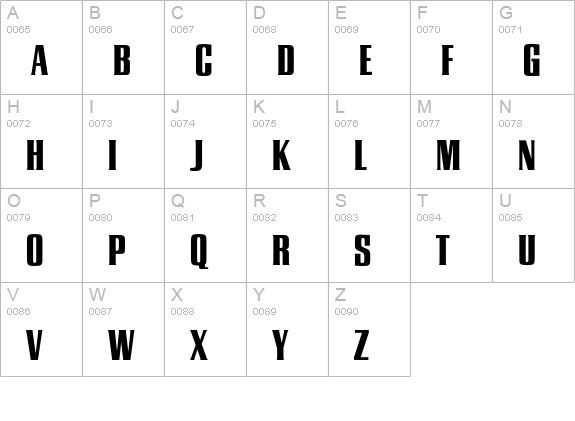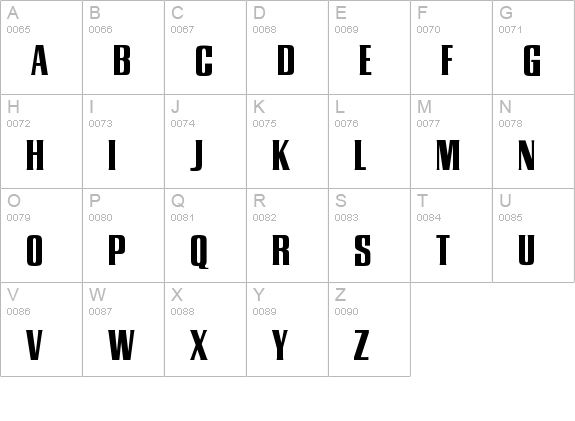
Telescope Font Details
Introducing Telescope, a visually captivating and meticulously designed font that will transport your typography to new celestial heights. With its sleek and modern aesthetic, Telescope effortlessly combines elegance and sophistication, making it the perfect choice for a wide range of design projects. Crafted with utmost precision, Telescope features clean lines and sharp angles that exude a sense of clarity and precision. Its versatile nature allows it to adapt seamlessly to various design contexts, whether it be for branding, editorial layouts, packaging, or digital applications. The beauty of Telescope lies in its ability to effortlessly capture attention and engage readers. Its bold and impactful letterforms demand to be seen, while still maintaining a sense of harmony and balance. Each character is meticulously crafted, ensuring legibility and aesthetic appeal in every word and sentence. What sets Telescope apart from other fonts is not only its exceptional design but also its accessibility. We believe that great design should be available to everyone, which is why Telescope is offered as a free download exclusively at FontsMarket.com. This means that you can bring this exceptional font into your projects without any barriers, allowing your creativity to soar to new heights. With Telescope, you have the power to elevate your designs and make a lasting impression. Whether you're a seasoned designer or just starting out, this font will provide you with the tools to create stunning visuals that leave a lasting impact. So why wait? Download Telescope now and embark on a typographic journey that is out of this world.